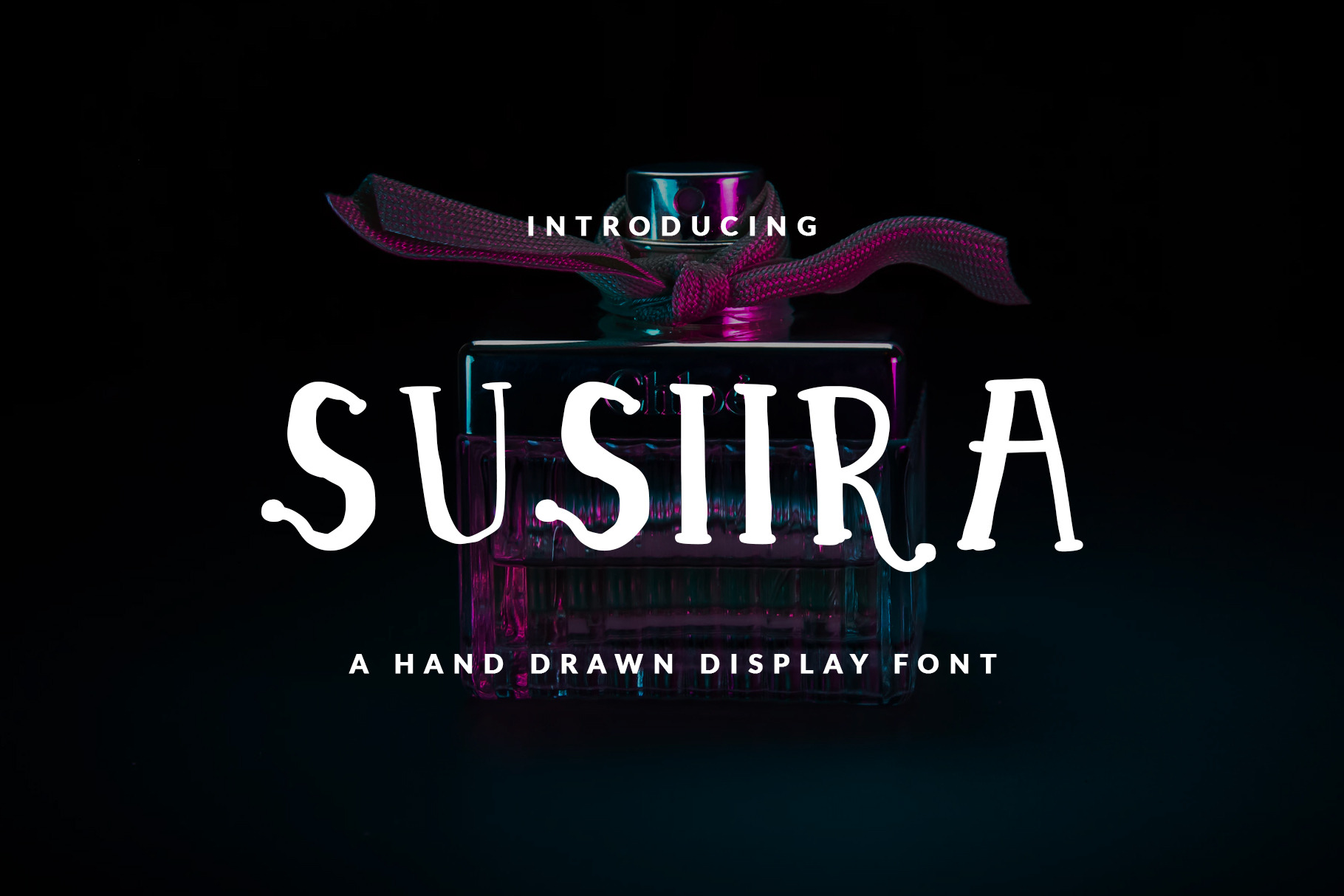
SUSIIRA FONT CHILDISH & GIRLY
Sans serif hand-drawn display font called SUSIIRA was designed for modern, classic, feminine, unique and other style also fit for Header website, general use for header text, kids stories, books, poems and other long text